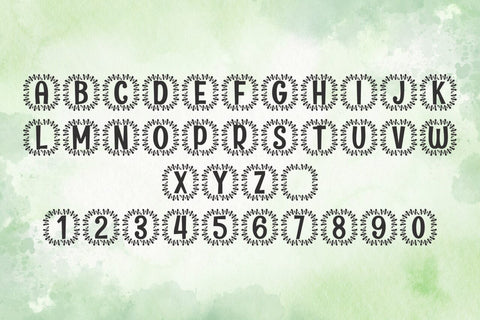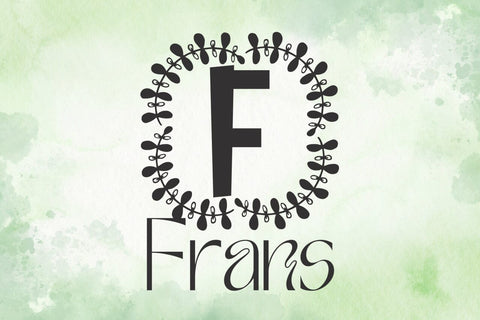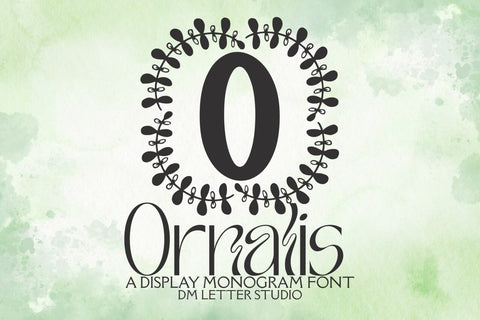
Ornalis Monogram Font
Meet Ornalis, the Monogram Font
Ornalis Monogram Font turns simple initials into refined emblems with a quiet, luxurious feel. Strokes are smooth and balanced, while the letterforms keep generous counters so tiny tags and foil seals read clearly. Use it for wedding suites, boutique logos, premium packaging, keepsake gifts, and signage. Moreover, Ornalis pairs beautifully with modern serifs and calm humanist sans fonts, so your layouts look polished without extra work.
Where this monogram font shines
Set single, double, or triple initials for logos, seals, menus, and place cards. Then frame them with laurel rings, oval borders, fine rules, or subtle ornaments to echo the poised geometry. Since proportions favor symmetry and clarity, centered compositions come together in minutes. As a result, your thumbnails stand out across marketplaces and your listings stay consistent from invitations to branding kits. Ornalis also scales smoothly from jewelry cards to entry signage.
Design tips for Ornalis Monogram
Keep initials large and let white space breathe. Pair the headline monogram with a soft serif for body text or a clean sans for labels and dates. Add micro shadows, a fine inner stroke, or a delicate frame to create depth. Because the forms feel airy and balanced, textured papers and metallic accents raise perceived value. However, keep copy short so the monogram remains the hero and legibility stays strong on small items.
Select stylistic alternates for key letters
Curves tuned for foil, letterpress, engraving, laser, and clean vinyl cutting
Why creators choose Ornalis
You want elegance that reads at a glance and sells across many products. Ornalis Monogram Font delivers steady clarity, quick layout, and a cohesive brand voice from invites to packaging and gifts.